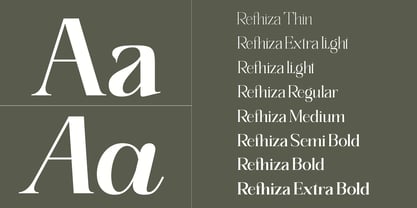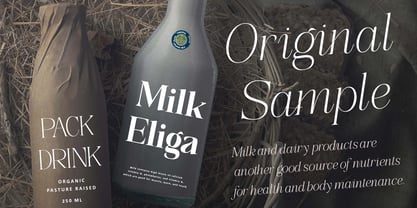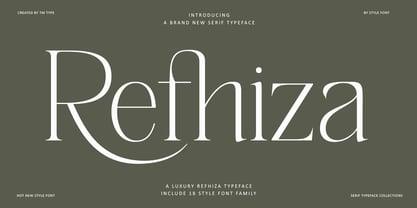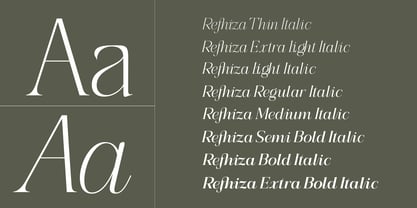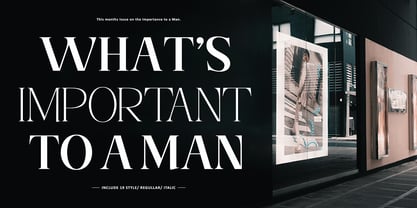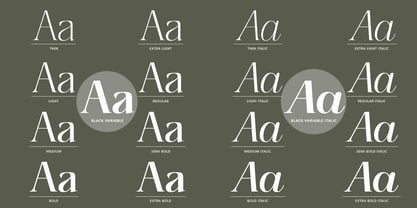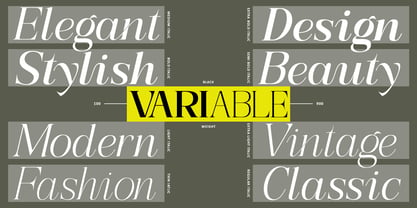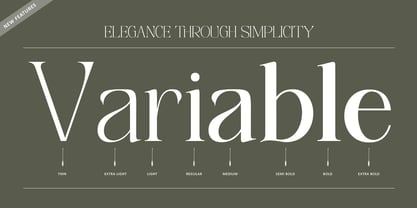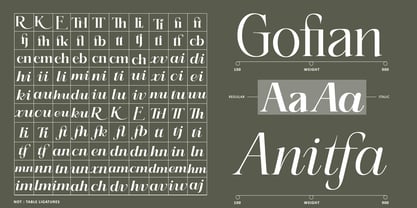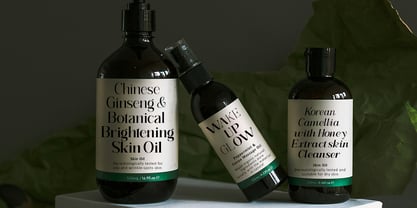
Refhiza
by TM Type
The Refhiza Font Family was designed by Teuku Bustami and published by TM Type. Refhiza contains 18 styles and family package options. More about this family
Refhiza is a high-contrast modern serif typeface that exudes elegance, sophistication, and luxury. Belonging to the Didone classification, it features a refined design marked by strong vertical stress, dramatic contrast between thick and thin strokes, and crisp, hairline serifs. Distinctive details like ball terminals on characters such as “g” and “a” add a delicate, ornamental quality that enhances its graceful tone. The uppercase letters display elongated vertical proportions, while the generous x-height aids in legibility at display sizes. Inspired by classic typefaces like Bodoni and Didot, Refhiza offers a contemporary interpretation of timeless style.
This font thrives in high-end visual environments where style and refinement are essential. It is particularly well-suited for luxury branding, fashion editorials, cosmetic packaging, magazine headlines, and upscale event promotions. Whether used in print or digital formats, Refhiza brings a sense of poise and polish, making it a perfect choice for design contexts that demand beauty and sophistication.
Designers: Teuku Bustami
Foundry: TM Type